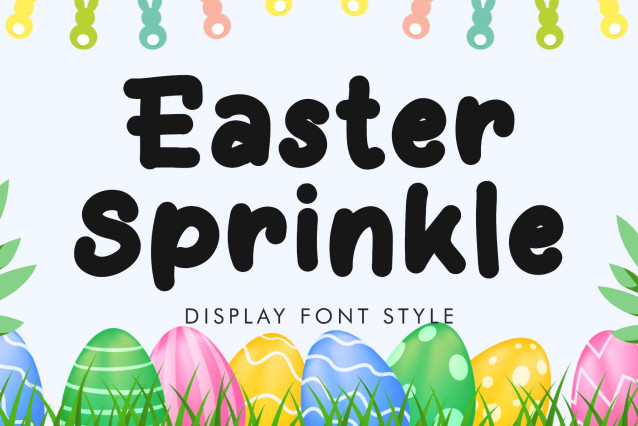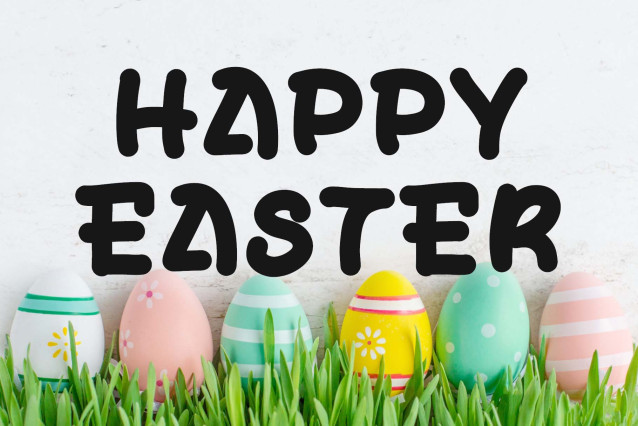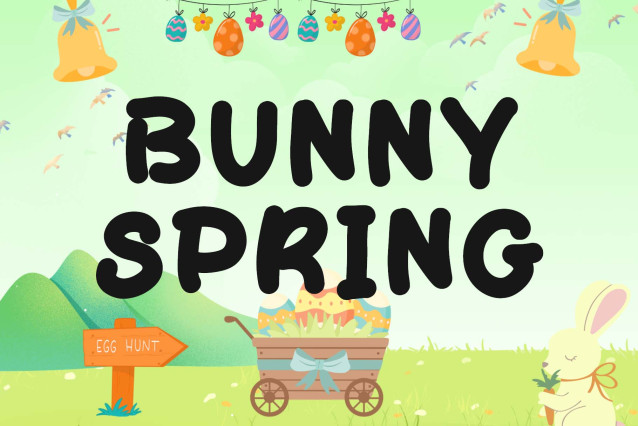
Easter Sprinkle Font
“Easter Sprinkle” is a unique and fun display font. It features uppercase and lowercase letters, numerals, punctuations, and multilingual support. It’s perfect for spring, Easter, banners, branding, stickers, logos, print, summer, vacations, holidays, Mother’s Day, Teacher’s Day, invitations, greetings, weddings, Christmas, and more.